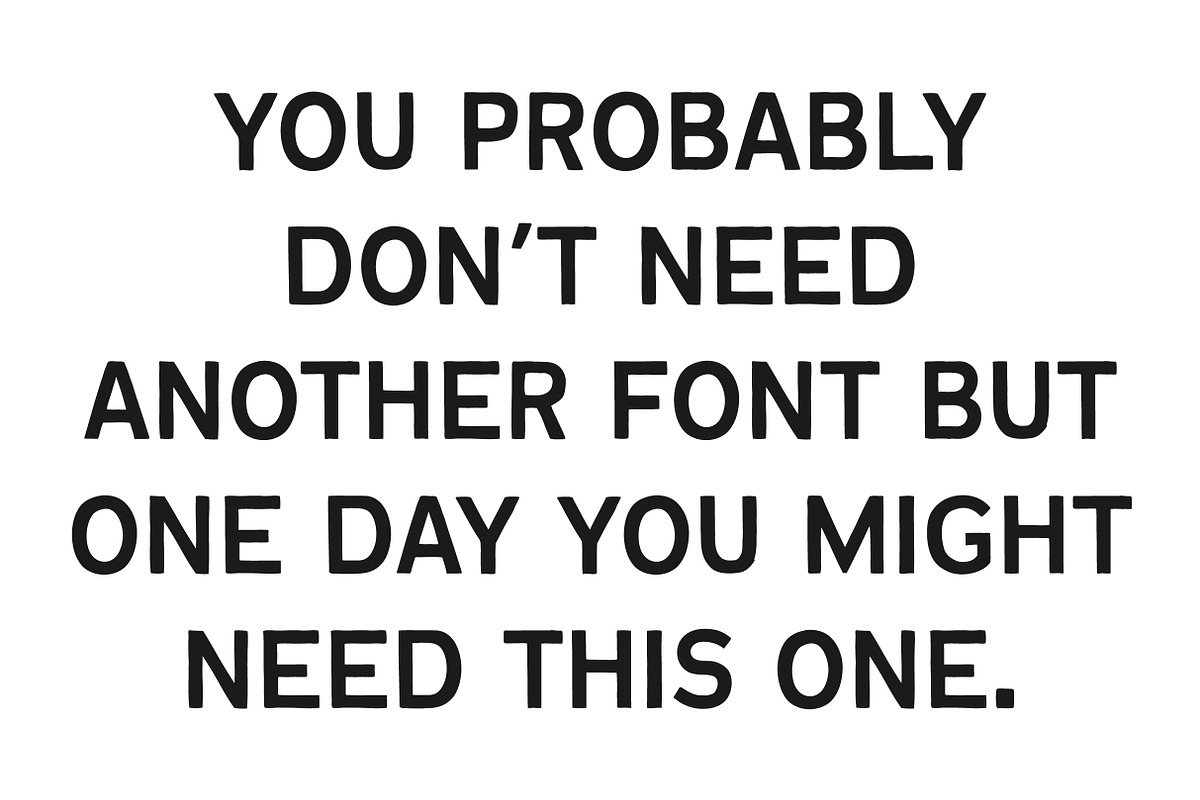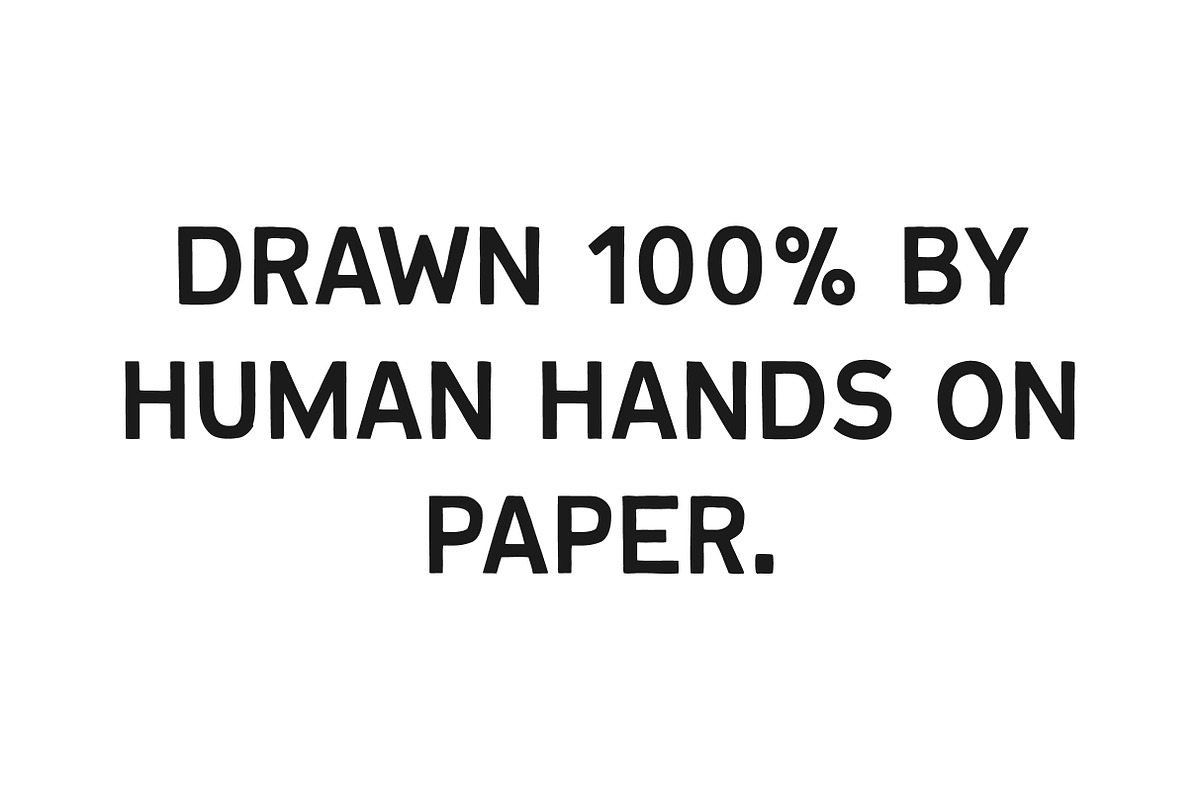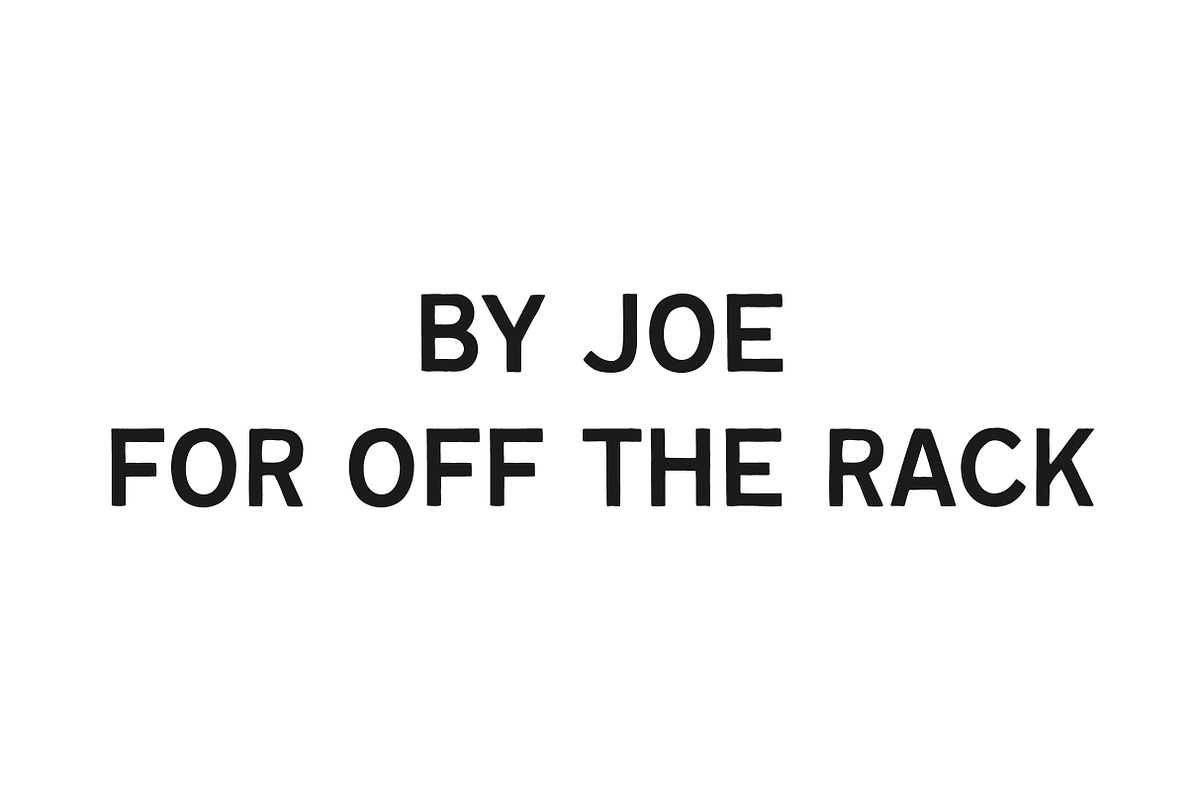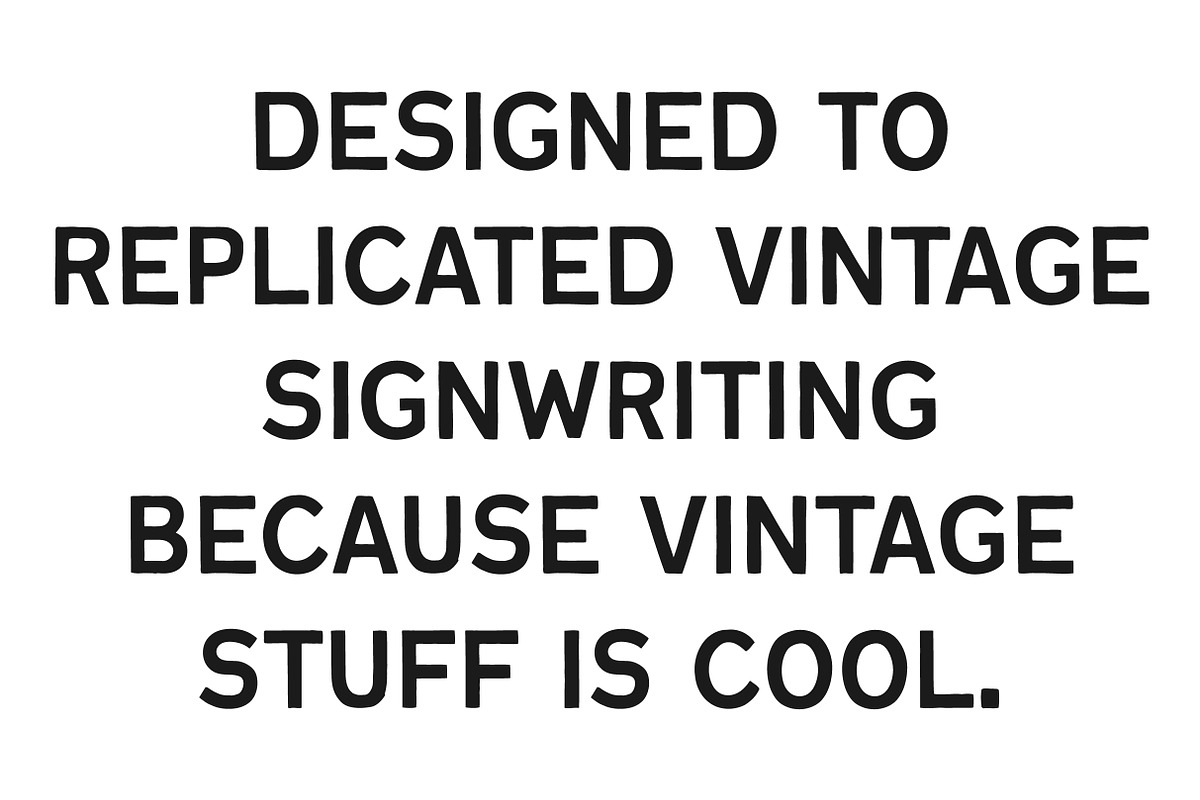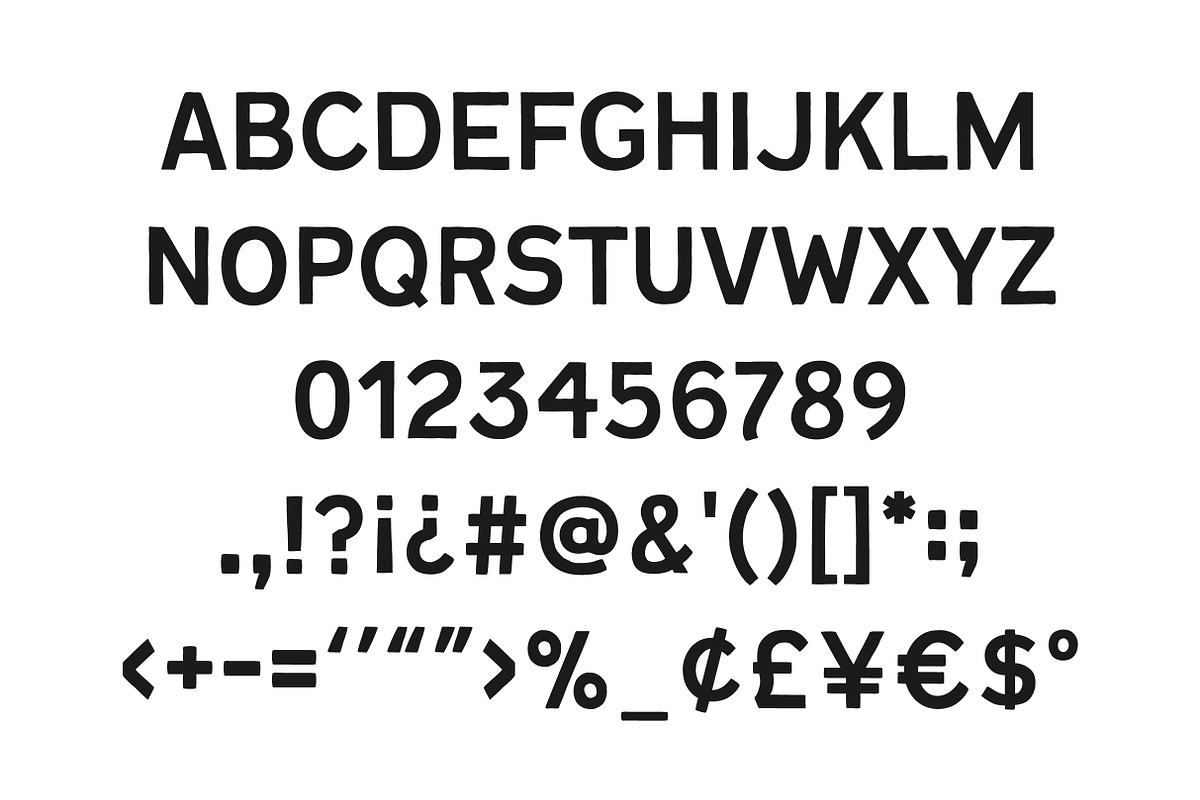
Cut & Shave Hand Drawn Vintage Font
Cut & Shave is inspired by vintage signwriting and logos from the 1800's. Drawn entirely by hand on paper (before being cut up and put back together again digitally) it's the perfect font to add a little character to your designs.
Ideal for logos, merch, and as an affordable alternative to hand lettering.
Contains uppercase, numbers and punctuation (+ language support for over 60 languages)